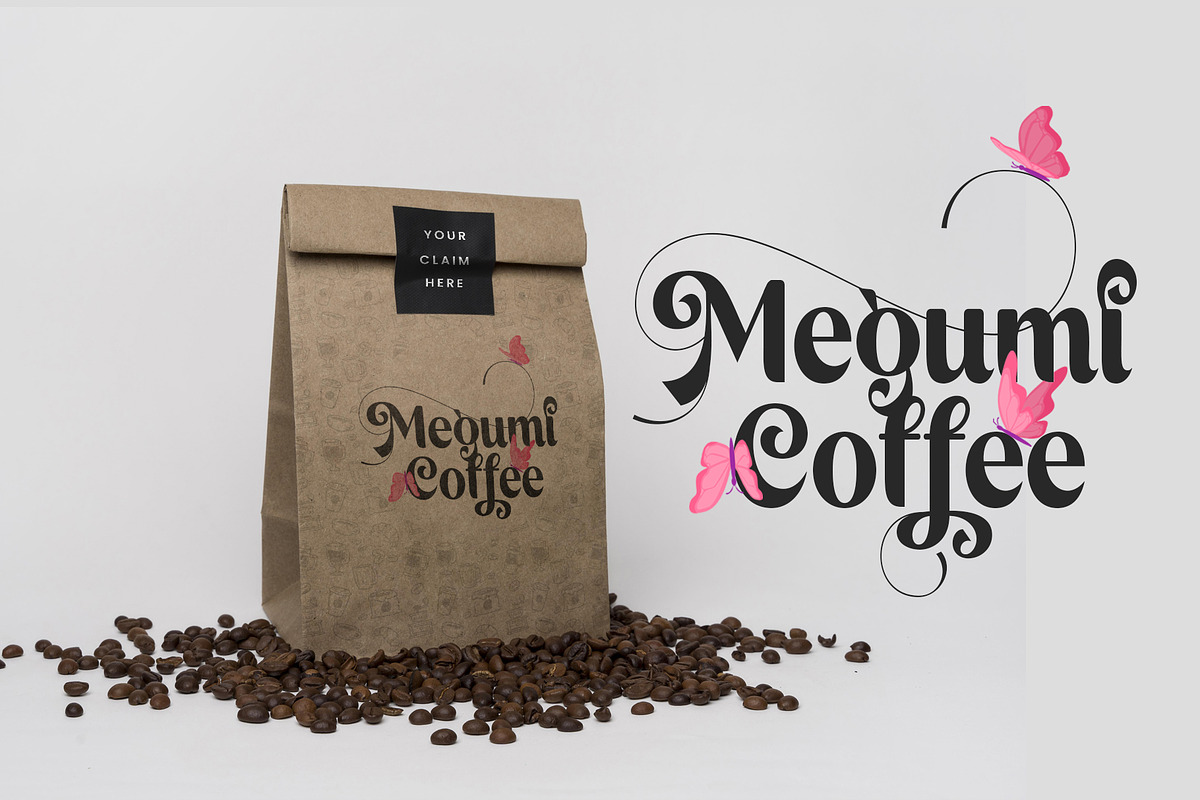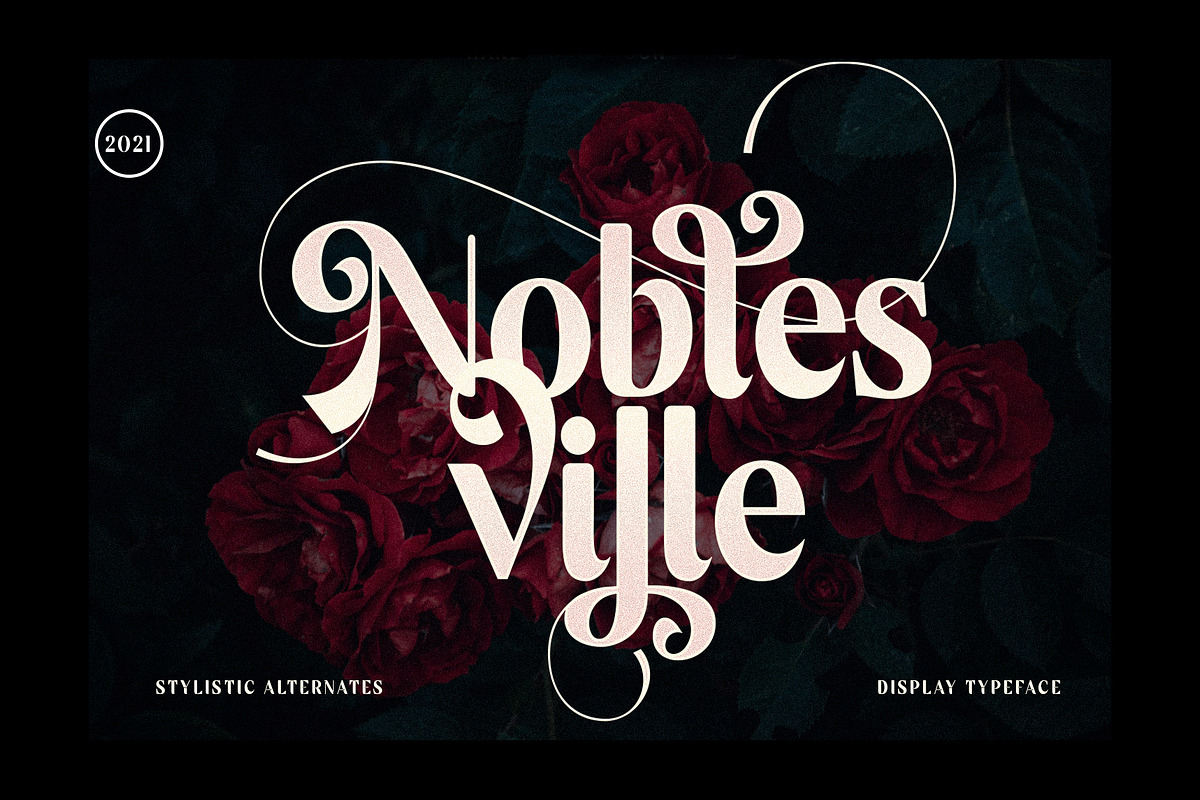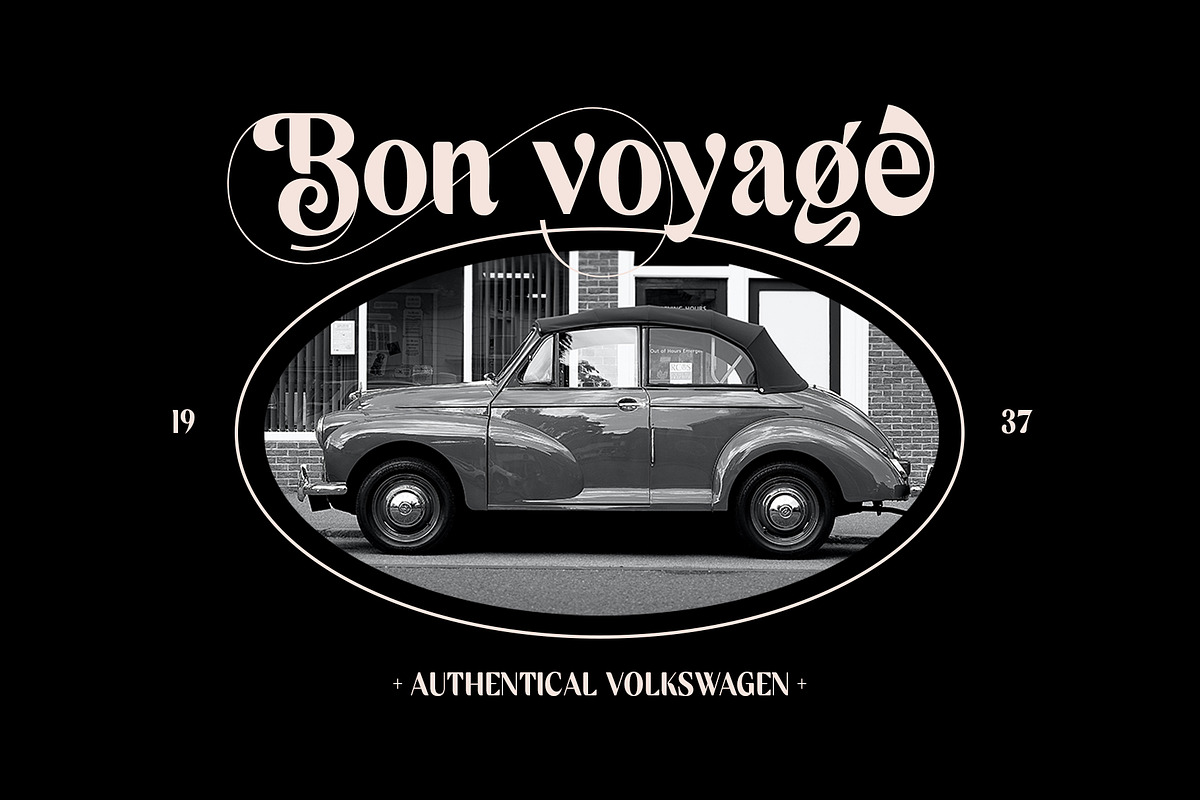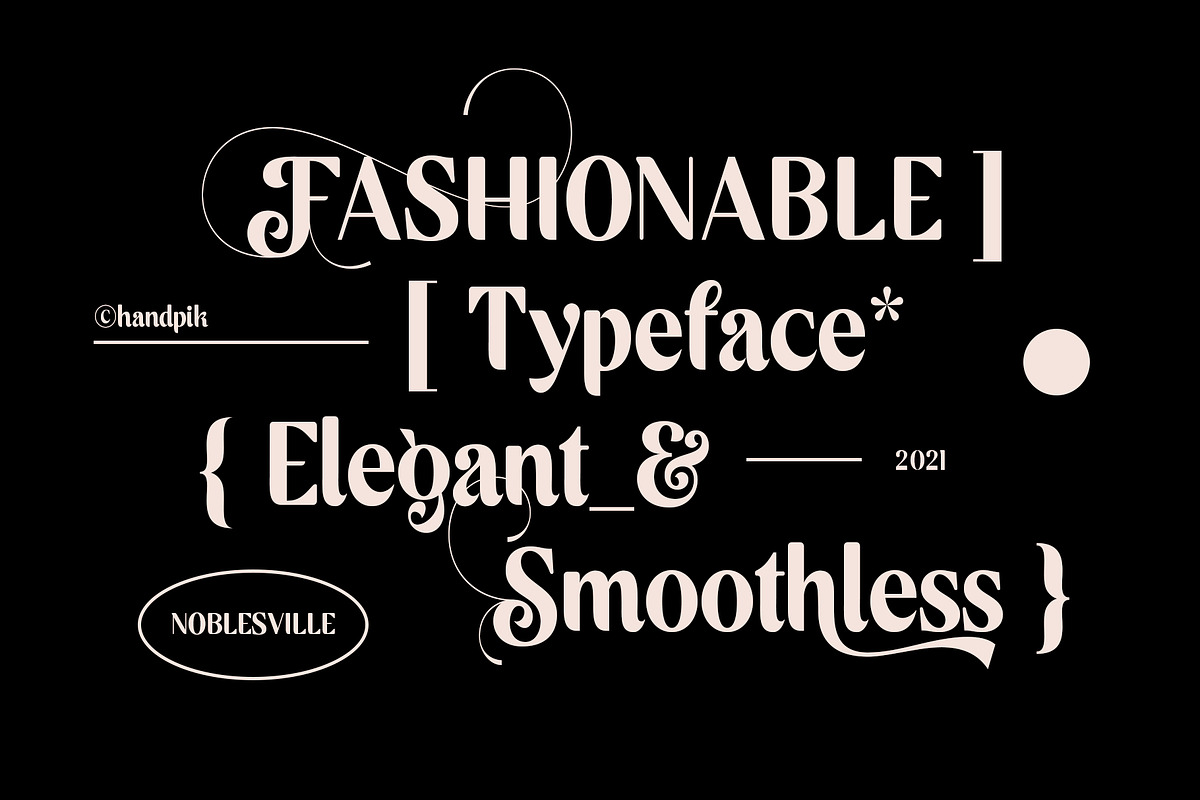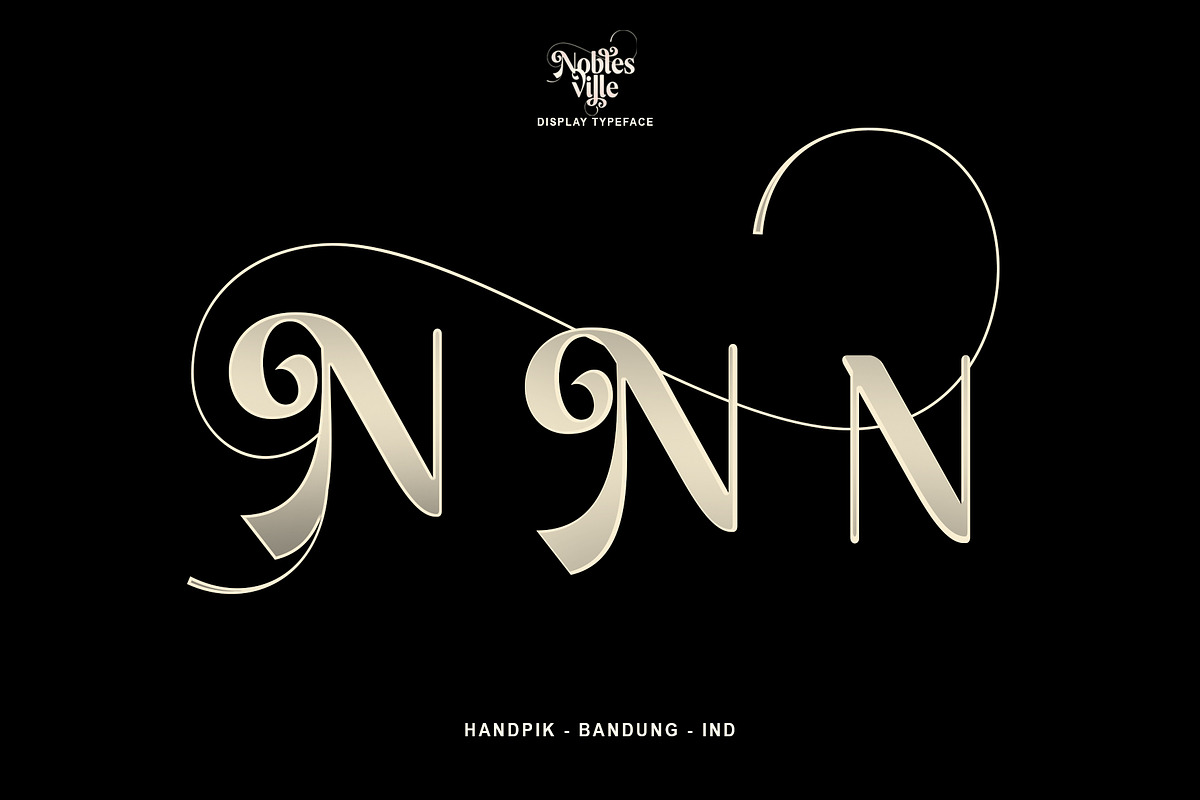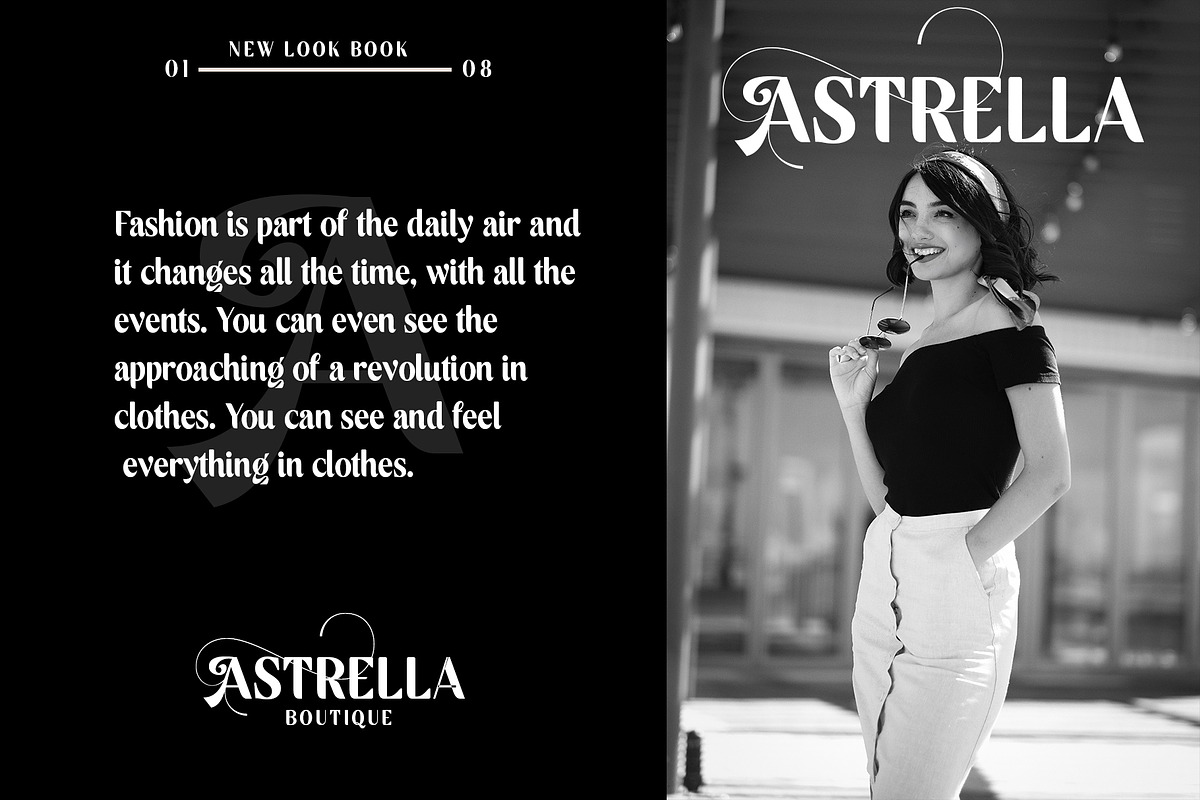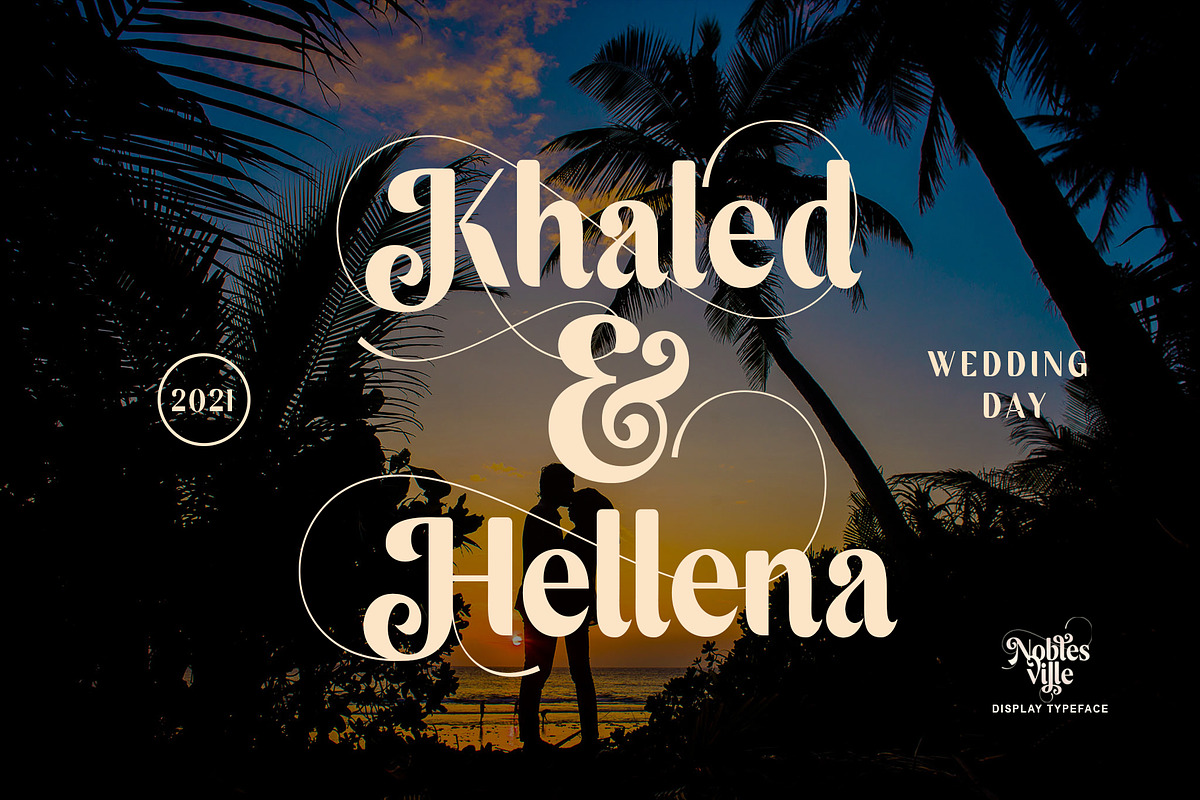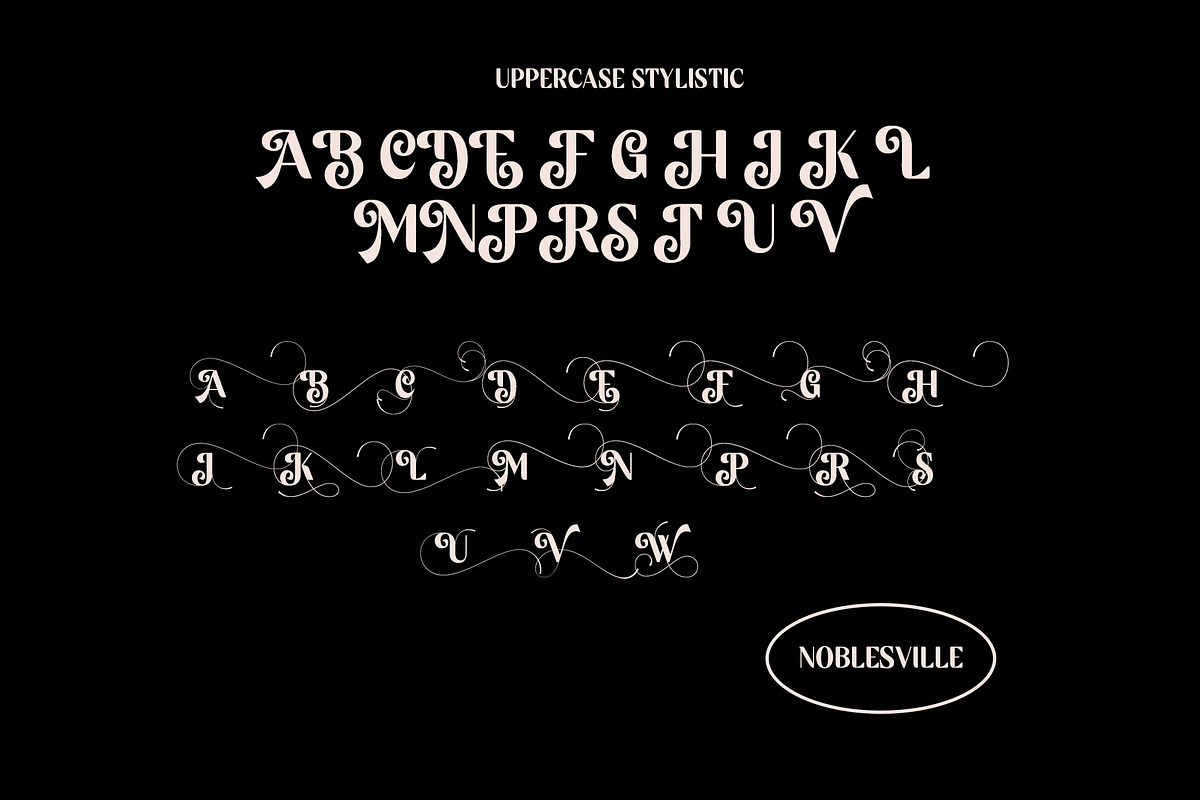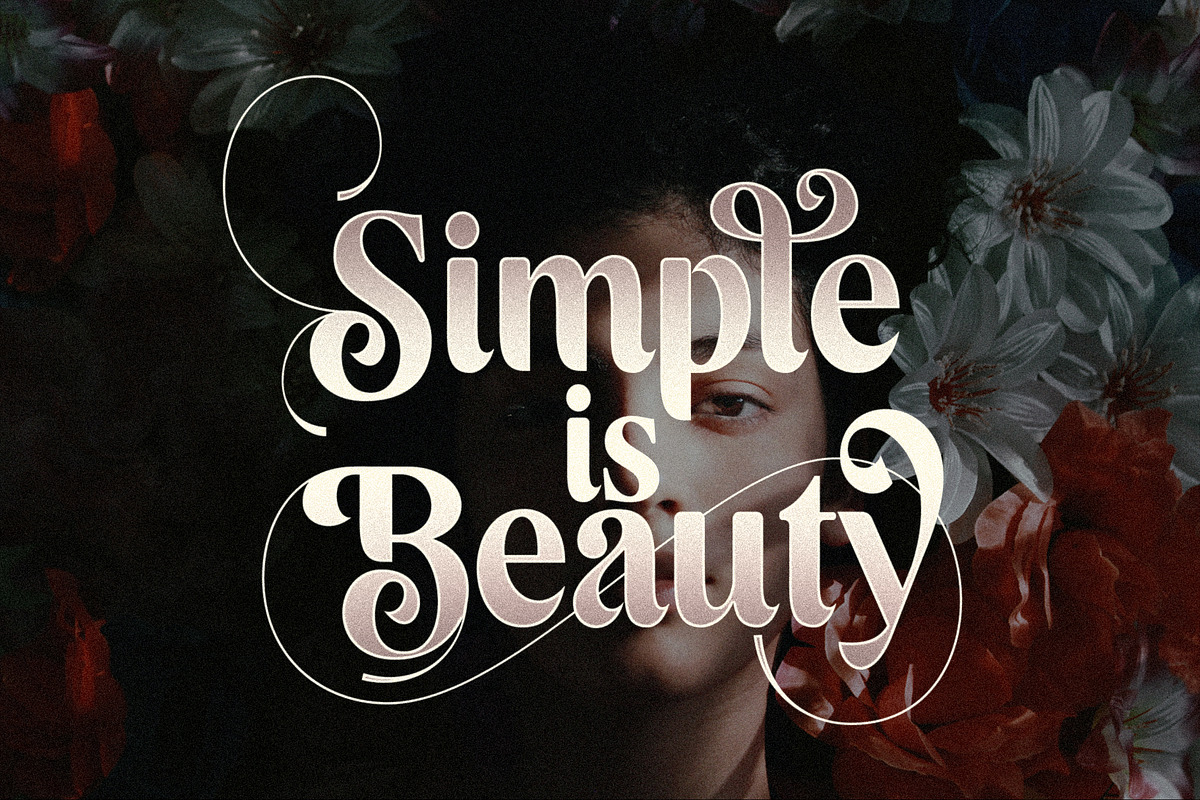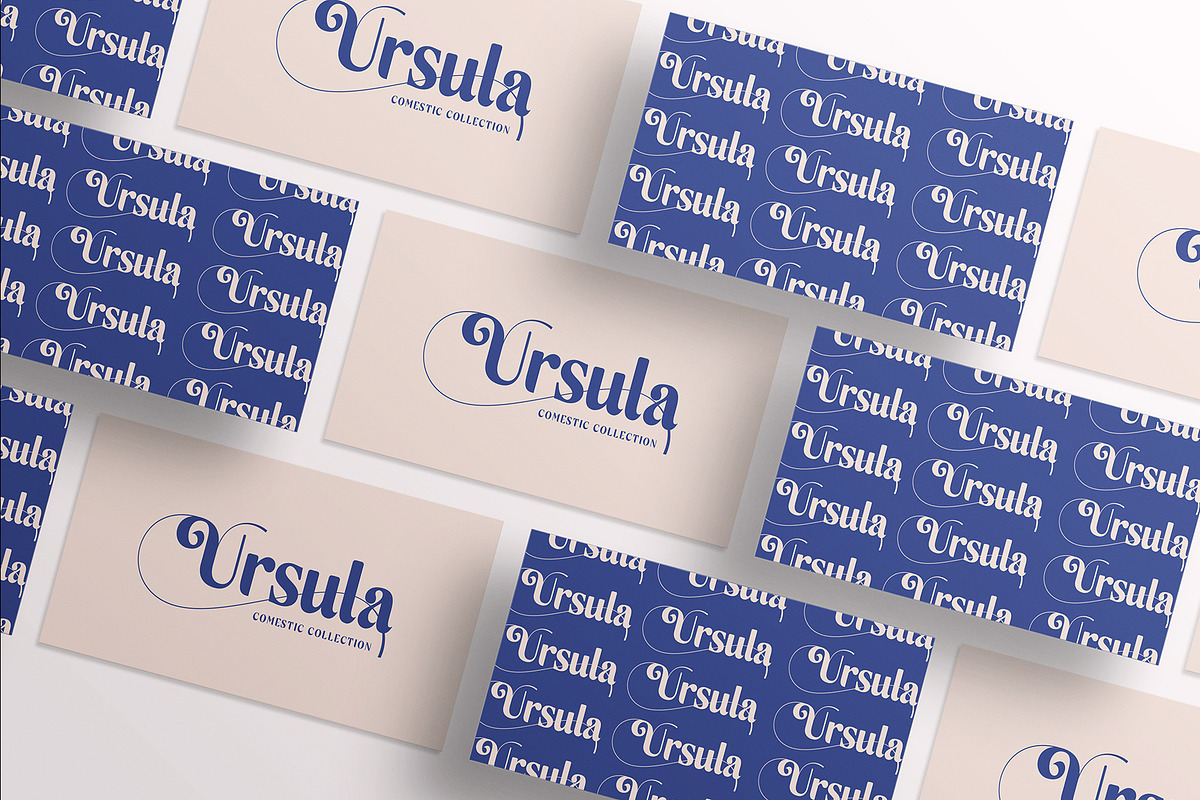
Noblesville
Hello, this time we want to introduce a new product. namely "Noblesville", a display font that has a classic, feminine and elegant style.
Mechta font is perfect for many different projects such as logos & branding, invitation, stationery, wedding designs, social media posts, advertisements, printed quotes, product packaging, product designs, label, photography, watermark, special events or anything.